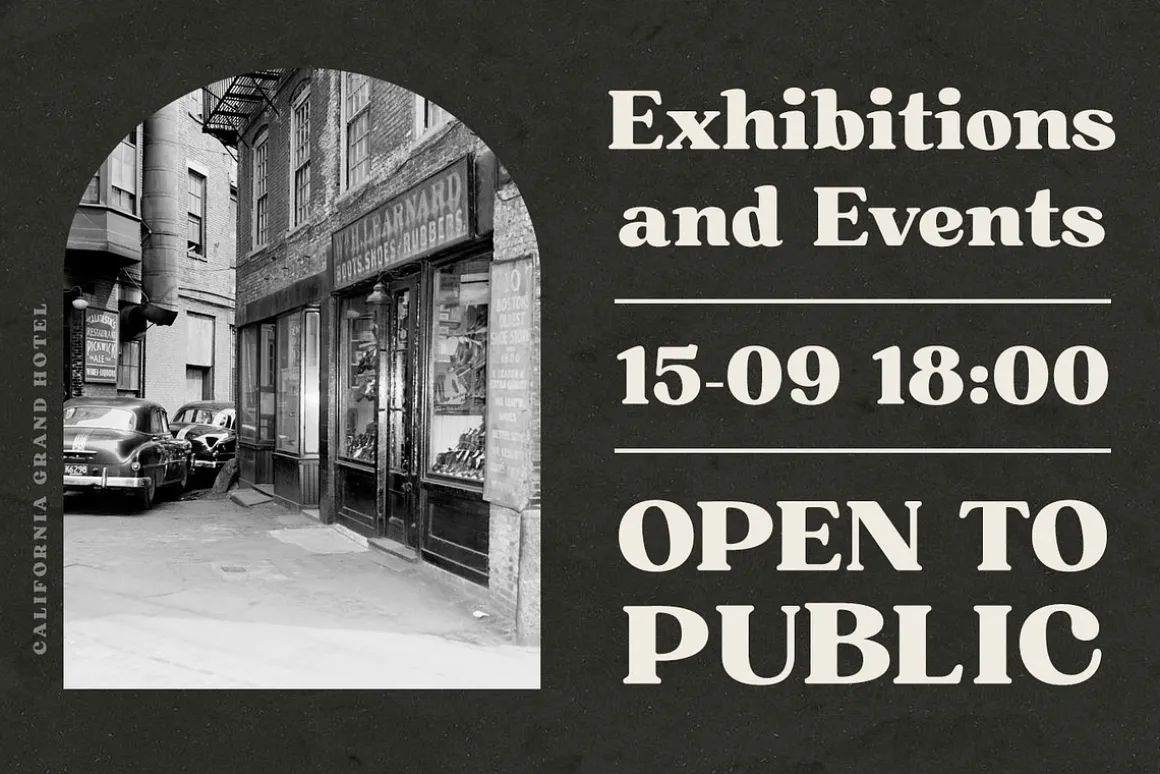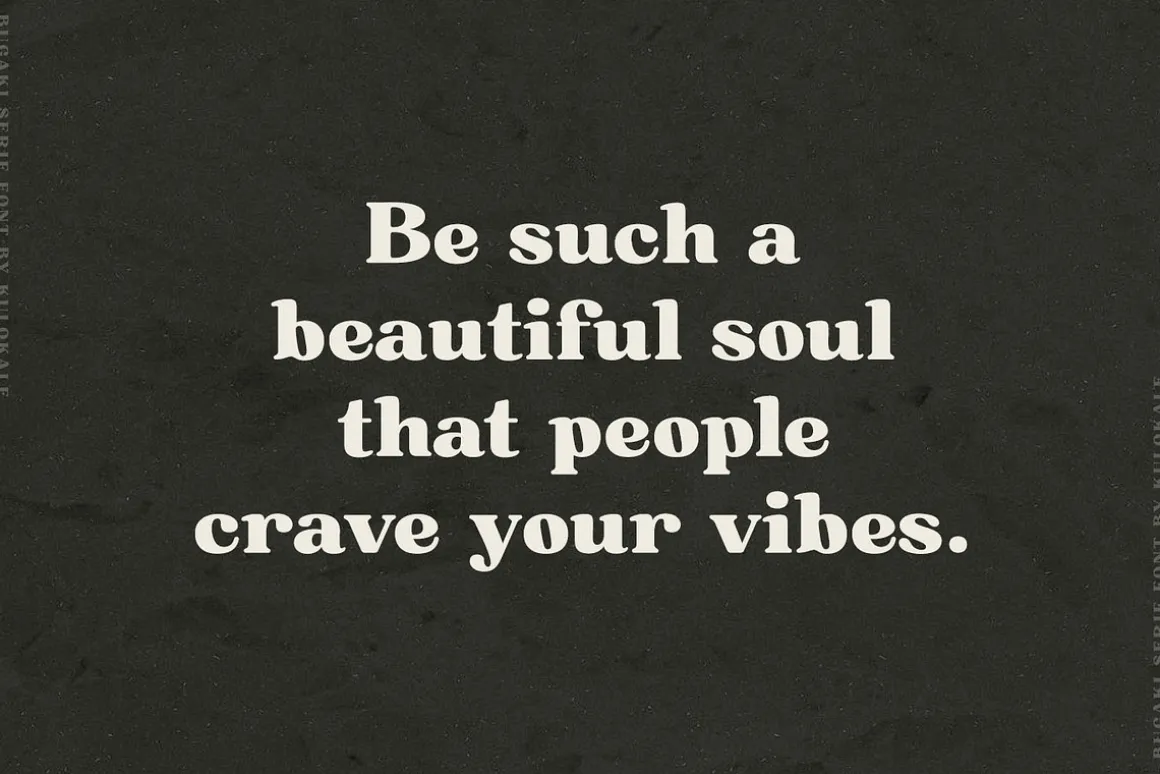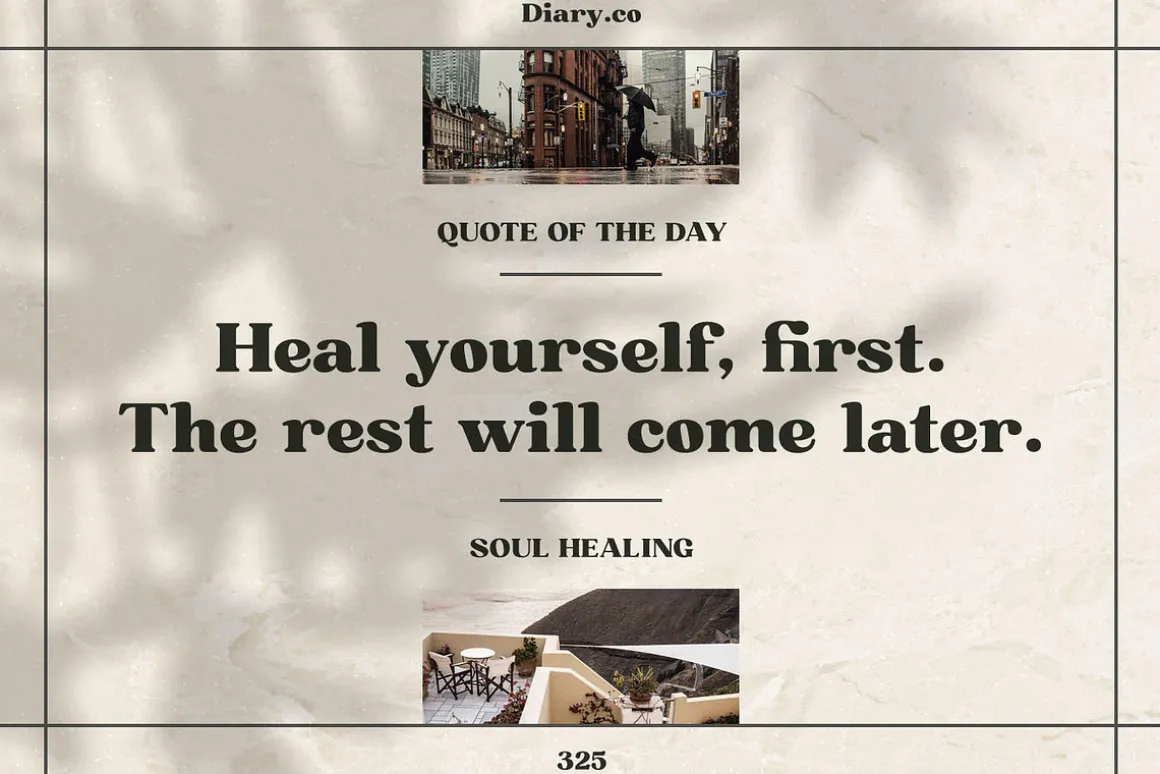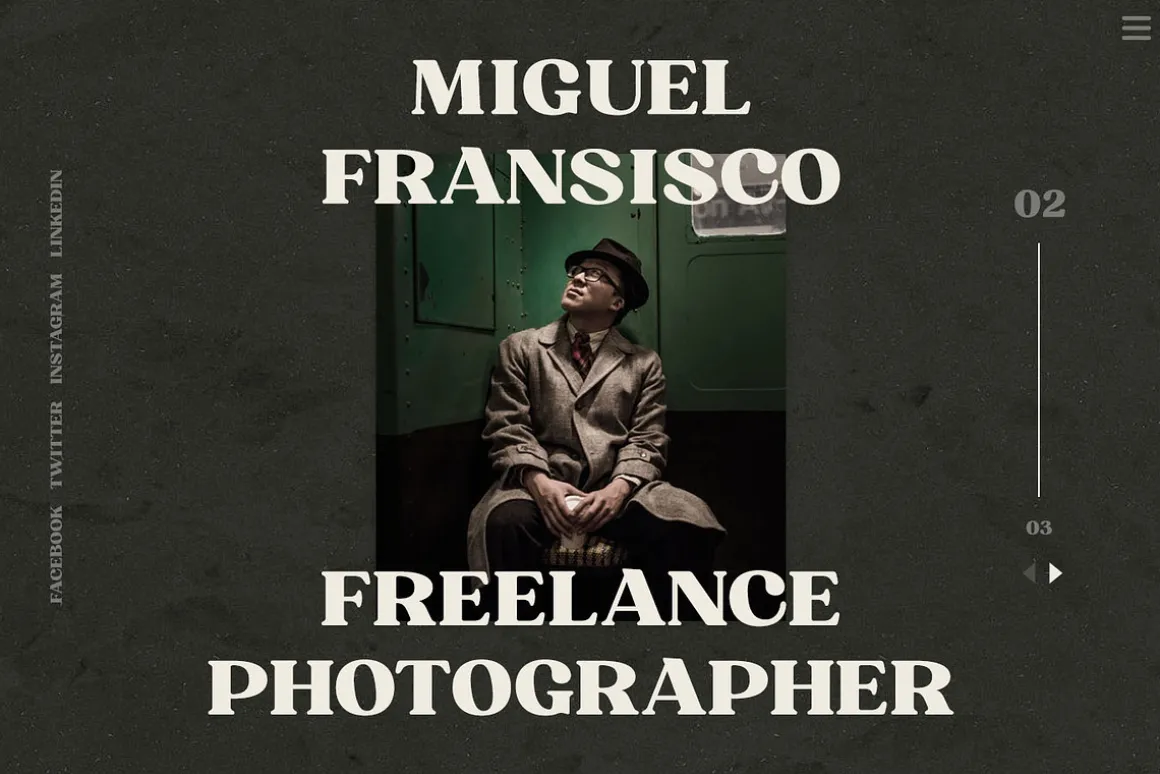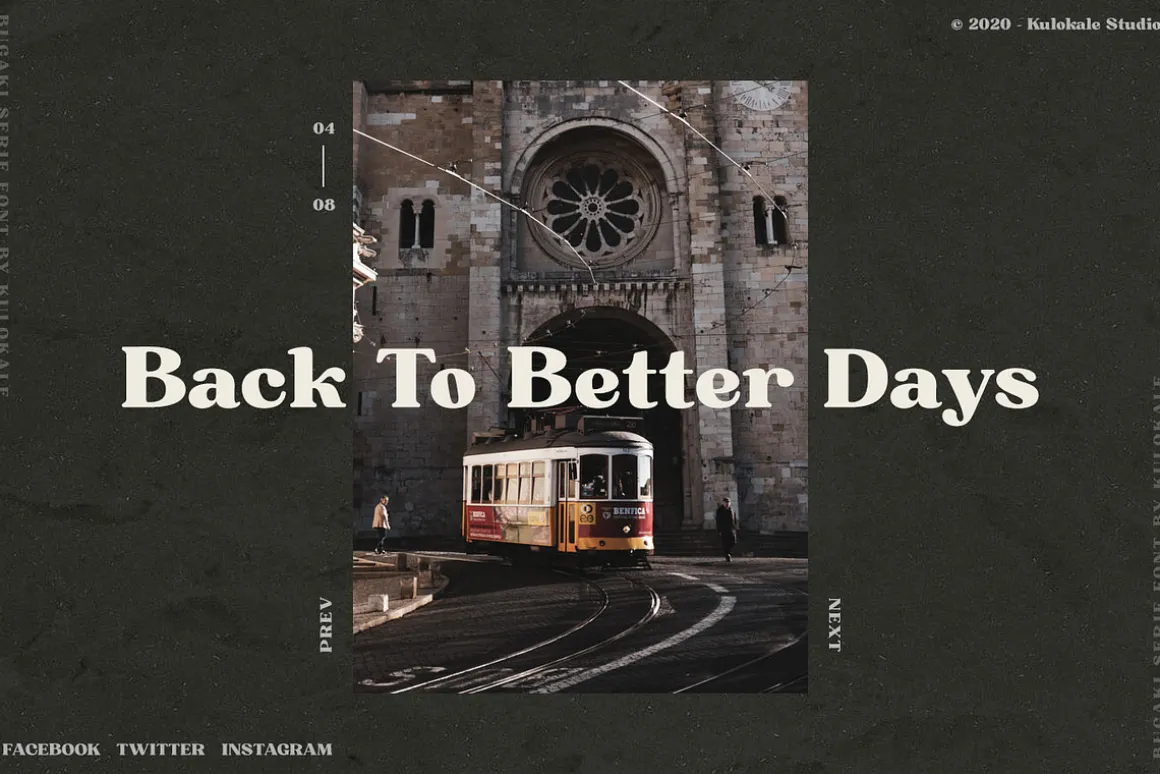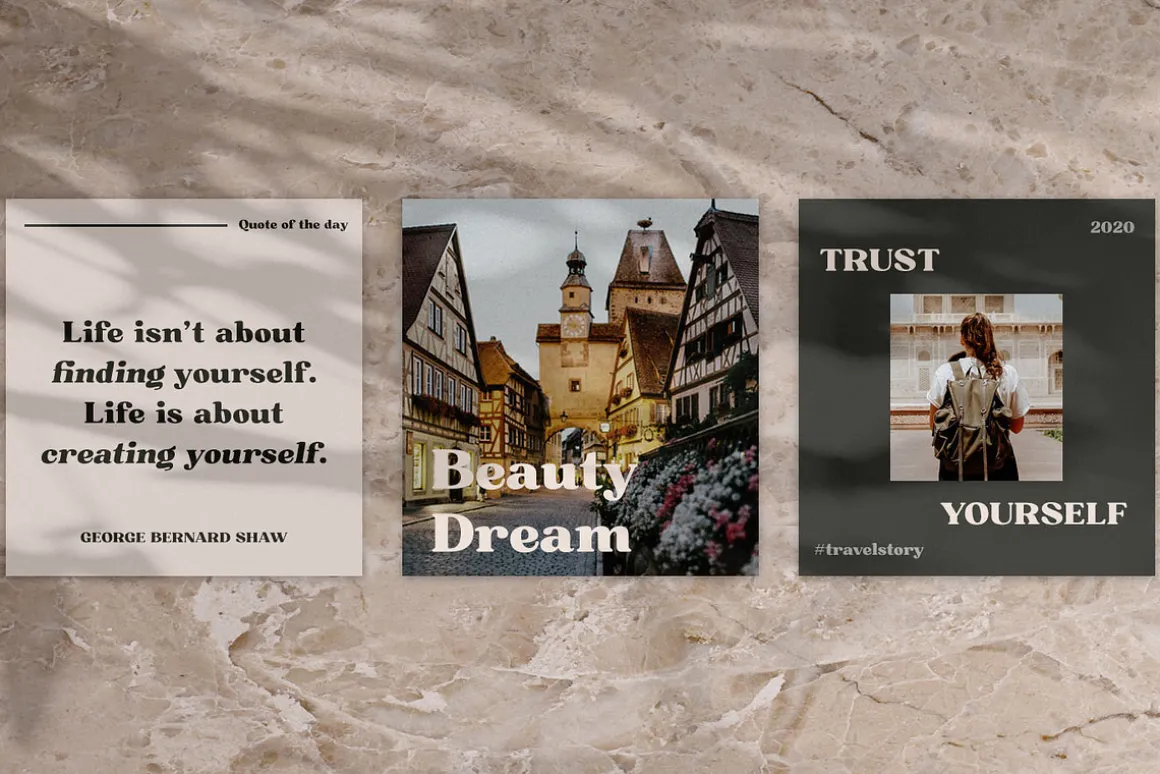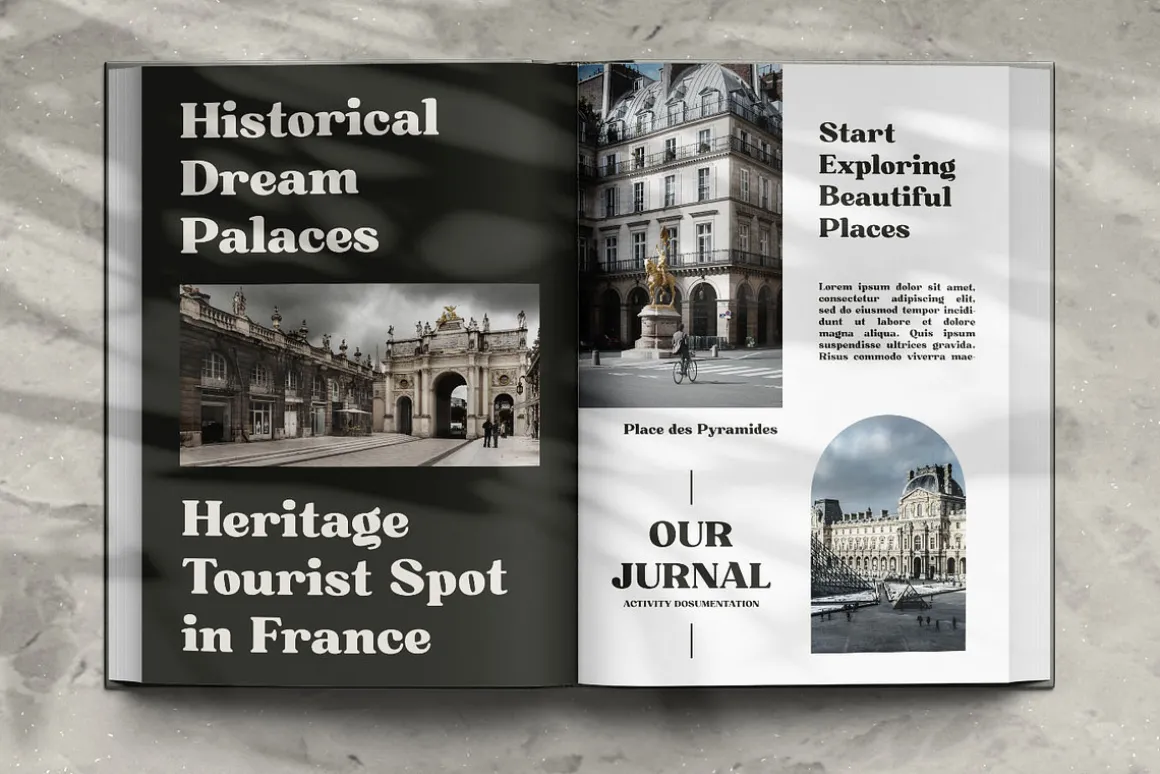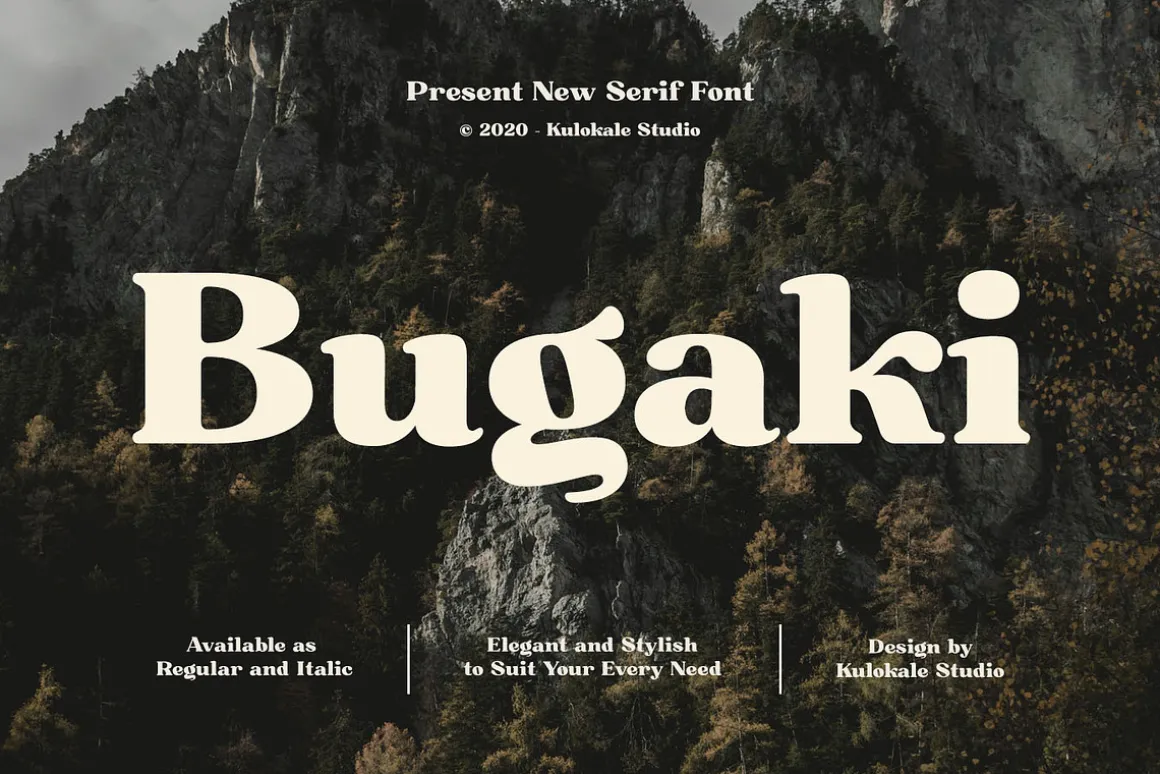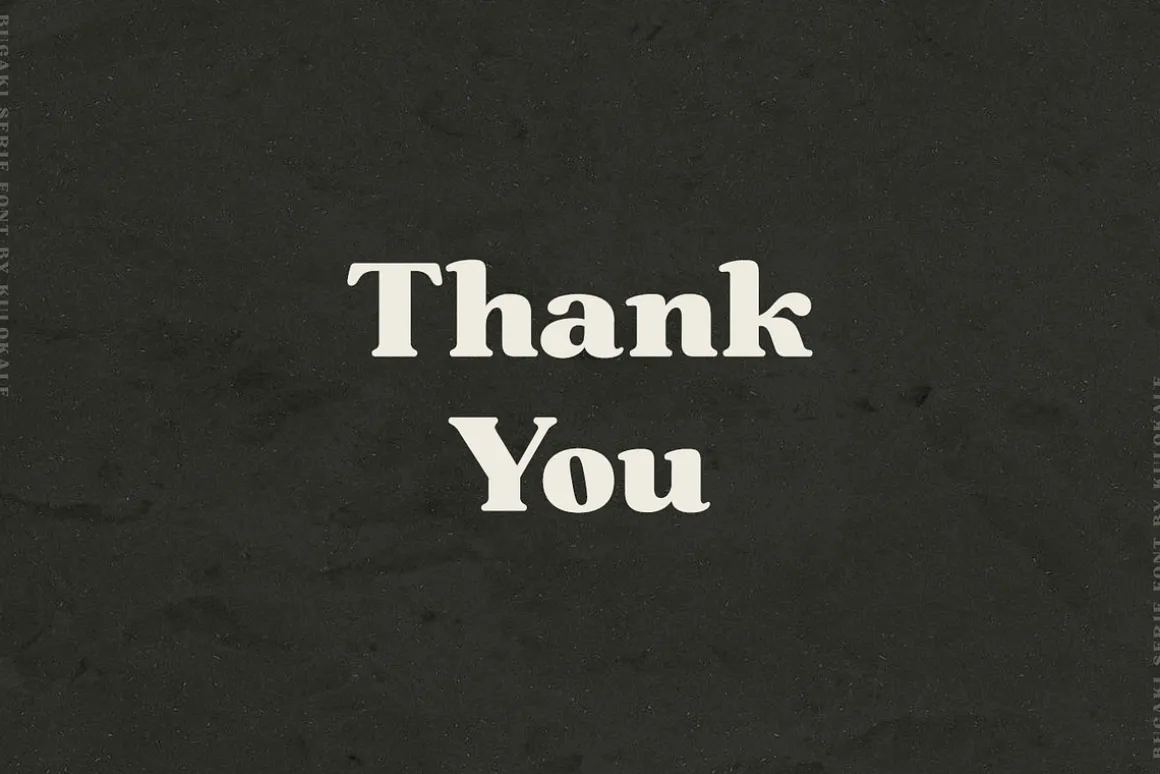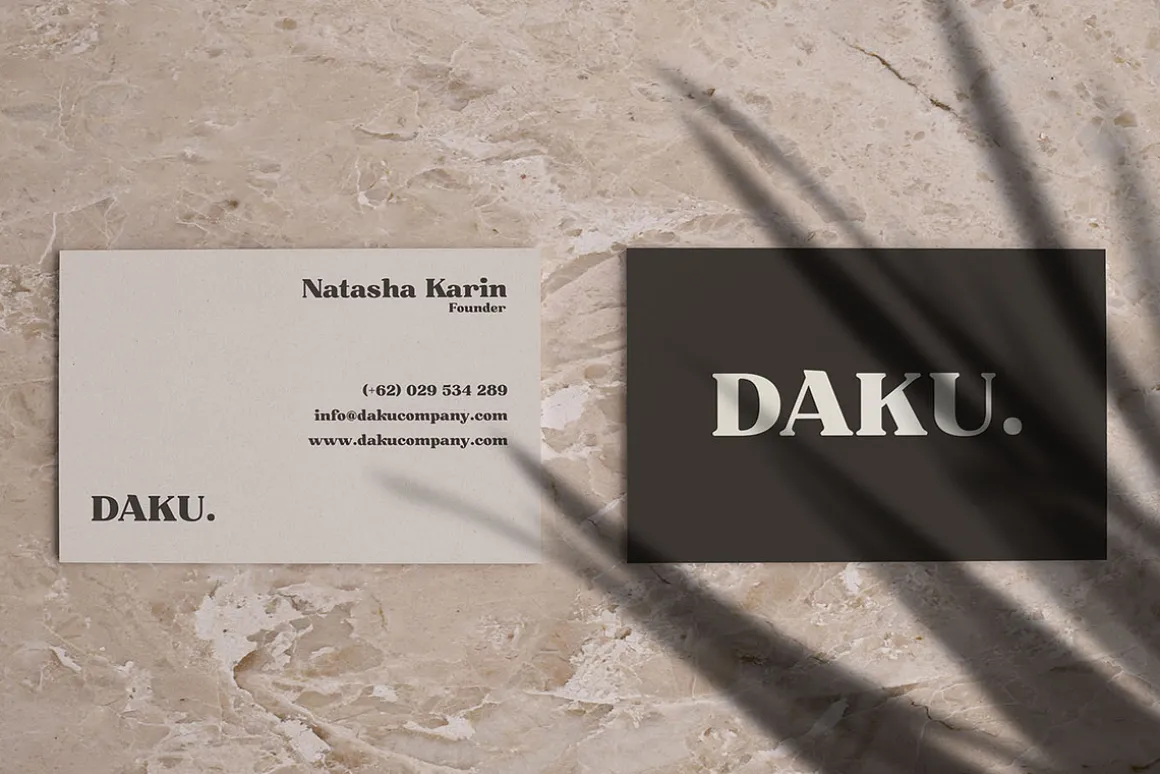
Bugaki is a modern and elegant serif font. Bugaki is well-suited for advertising, branding, logotypes, packaging, titles, headlines and editorial design.
- Bugaki includes Capital and Lowercase letters, Alternates, and Ligatures
- Numbers + punctuation
- Foreign language support